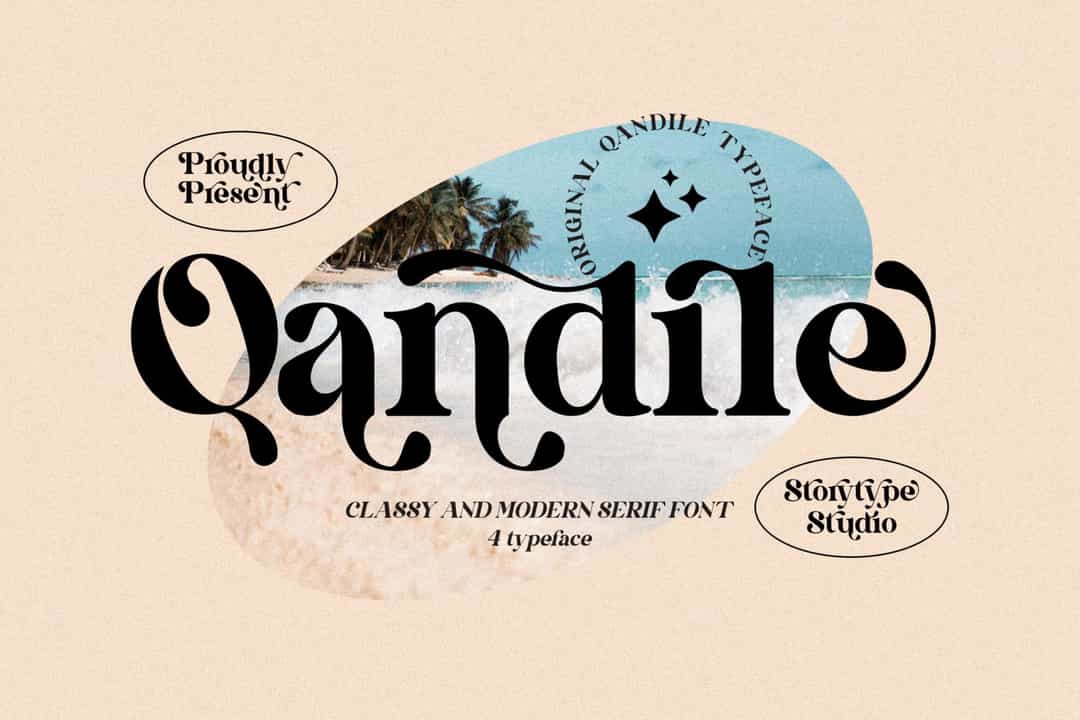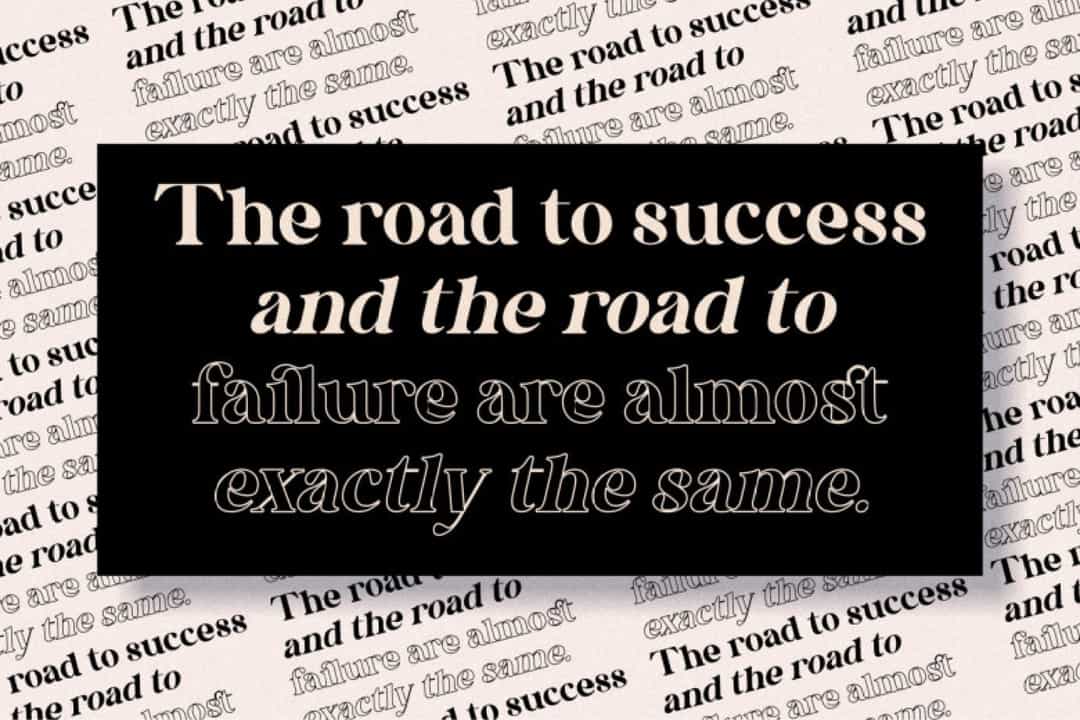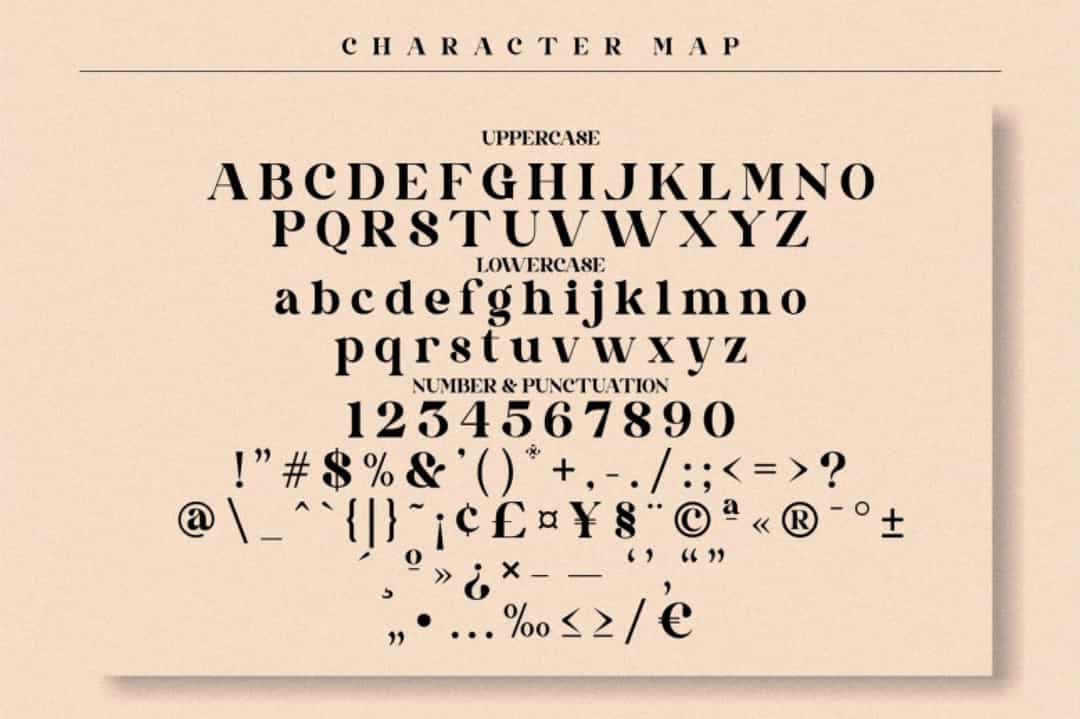
Discover Qandile Font, part of the Serif collection—a versatile and unique font perfect for adding a personal touch to your projects. Download it for free and enjoy crafting designs with style, from invitations to social media posts. This font is available exclusively for personal use, giving you the freedom to create without limits. Unlock your creativity with Qandile Font today!
Qandile is a bold and unique serif font with PUA encoding that makes accessing its glyphs, swashes, and characters simple! Feel confident adding Qandile into your designs without fear; be amazed by the result created.